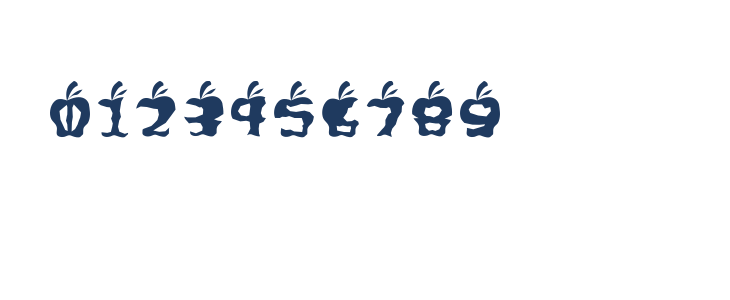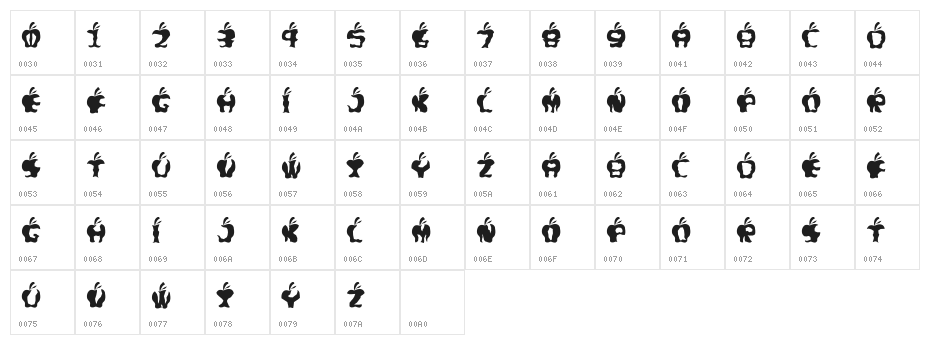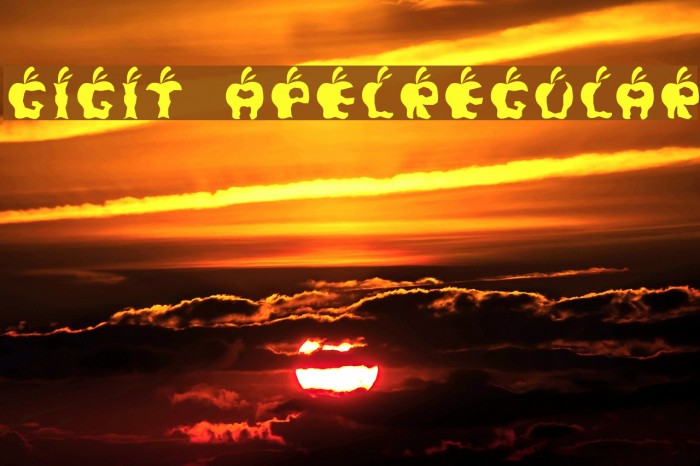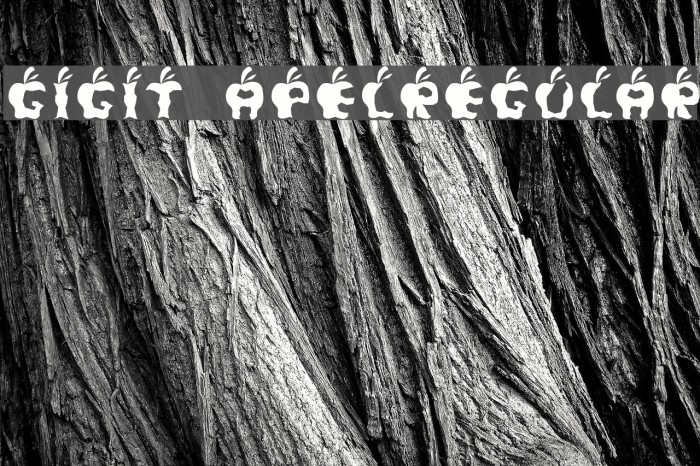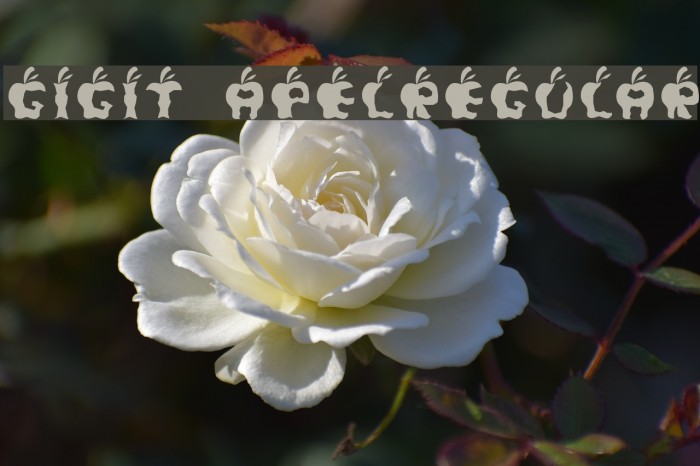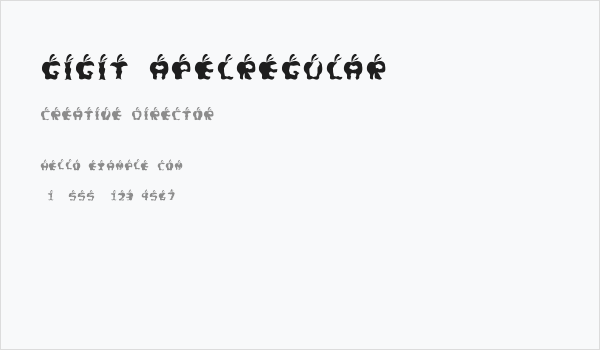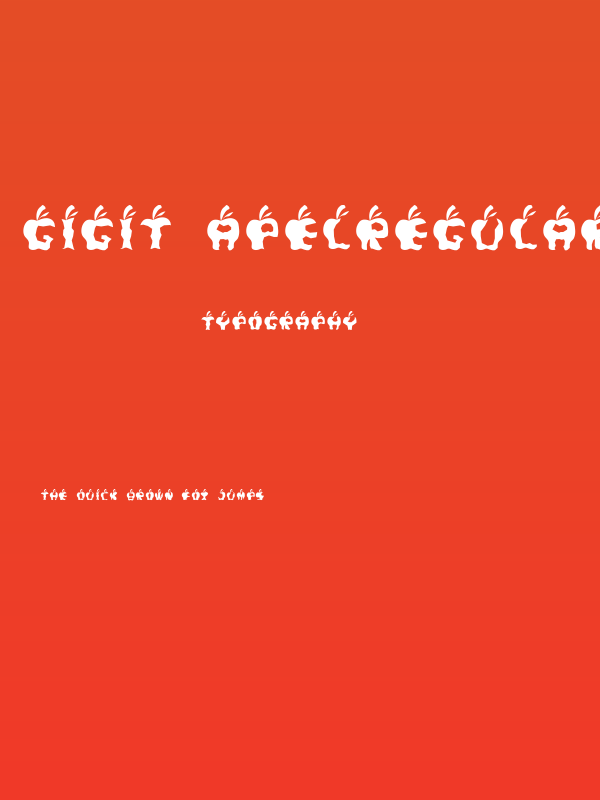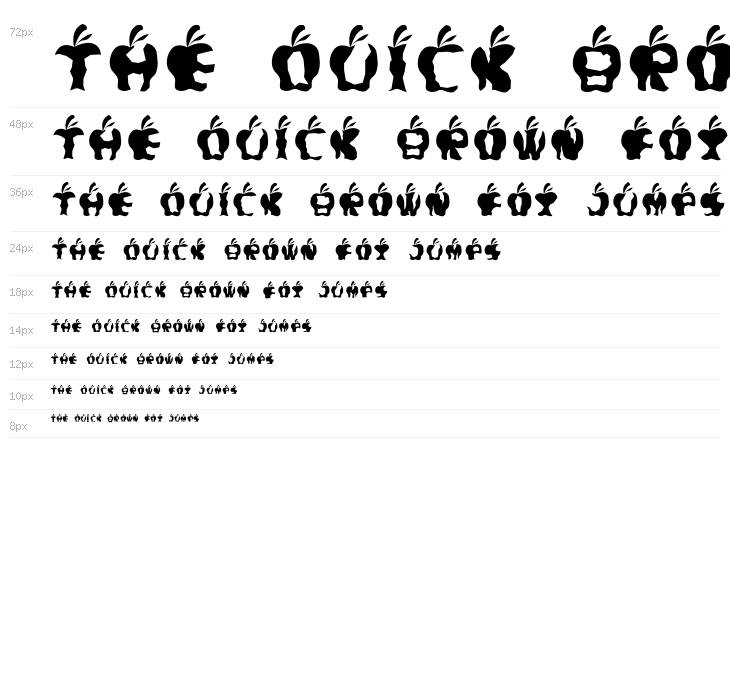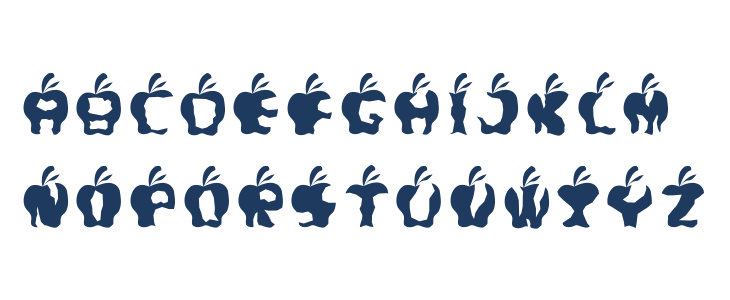
Gigit ApelRegular Font
Gigit ApelRegular Description
This playful and creative font features characters that are cleverly integrated with apple shapes, giving it a unique and whimsical appearance. The bold, solid strokes form each letter and number, with apple silhouettes adding a distinctive flair. The font maintains a consistent weight and width throughout, creating a cohesive look. The apple motif is prominent, making it ideal for projects that require a fun and thematic style. The characters are well-defined, with moderate spacing that ensures readability while maintaining the decorative aspect.
| Overall Style | Playful, Thematic |
| Proposed Projects | Ideal for children's books, educational materials, food-related branding, and playful graphic designs. |